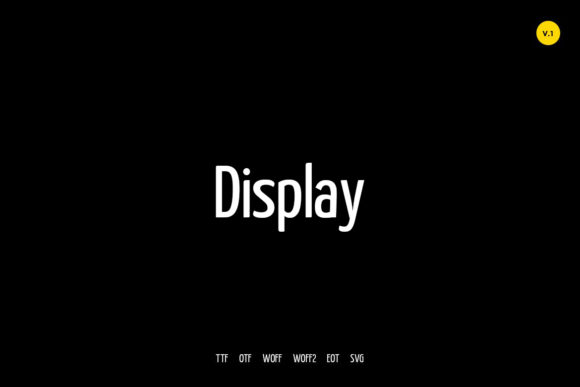
I still remember the frustration of working on a project, hours spent perfecting every detail, only to hit a roadblock: finding the right font. My client wanted something elegant, modern, and clean – a font that would elevate their brand without overpowering it. After scouring the internet, I stumbled upon Gabriella Font. It was love at first sight! ✨ In this article, I’ll share my experience with Gabriella, its features, and how to make the most of this beautiful sans serif font.
An Honest Review of Gabriella Font
- ✅ Clean and modern design with a unique approach
- ✨ Elegant feel perfect for high-end projects
- 🔥 Highly versatile for various design applications
- 👍 Excellent legibility on digital and print platforms
While Gabriella is an exceptional font, there are a few minor considerations:
- ⚠️ Limited availability of certain OpenType features in some software
- 🤔 May not be the best fit for extremely bold or attention-grabbing designs
A Practical Guide to Using Gabriella Font
- Experiment with OpenType features like ligatures and stylistic alternates to add a personal touch.
If you’re looking for fonts similar to Gabriella, consider these alternatives:
- Montserrat: A geometric sans serif with a similar modern feel, ideal for digital interfaces.
- Lato: A sleek sans serif with a bit of warmth, great for both print and digital designs.
- Raleway: An elegant sans serif with a range of weights, perfect for high-end branding projects.
- Open Sans: A clean and friendly sans serif, suitable for a wide range of applications.
The Story Behind Gabriella Font
Gabriella was designed with the intention of creating a clean, modern sans serif that still carries an air of elegance. Inspired by the beauty of simple typography, the designer aimed to craft a font that would be versatile enough for various design projects, from branding to web design. While the exact backstory might be fictional, the impact of Gabriella on the design community is very real.
| Font Name | Gabriella Font |
| Author | Webhance |
Q: Is Gabriella suitable for body text?
A: Yes, Gabriella’s clean design and excellent legibility make it suitable for body text in both print and digital formats.
Q: Does Gabriella support OpenType features?
A: Yes, Gabriella supports various OpenType features, including ligatures and stylistic alternates, which can enhance your designs.